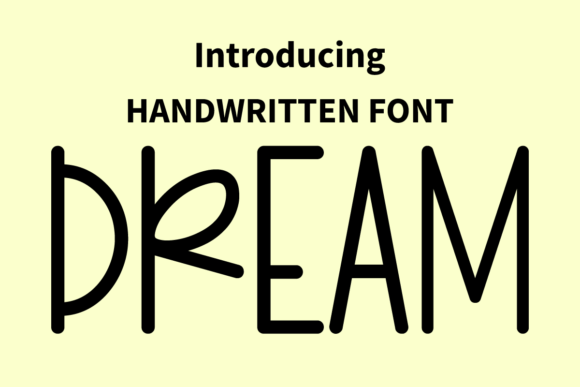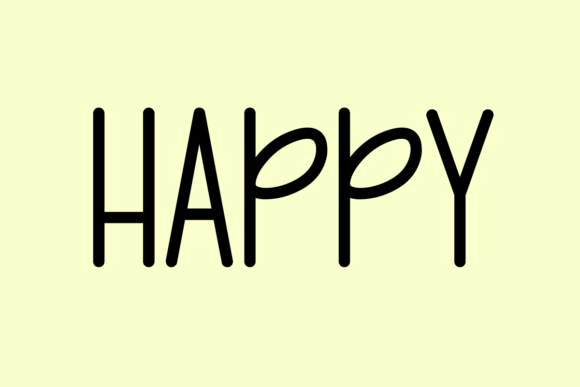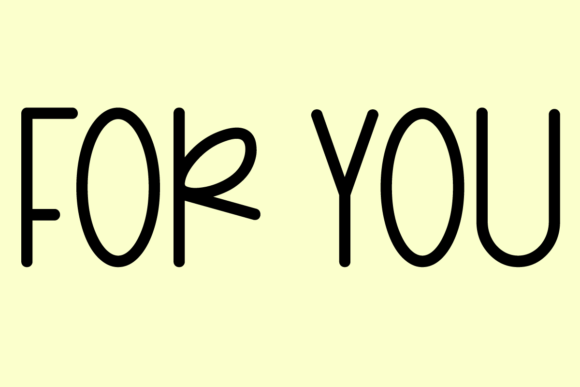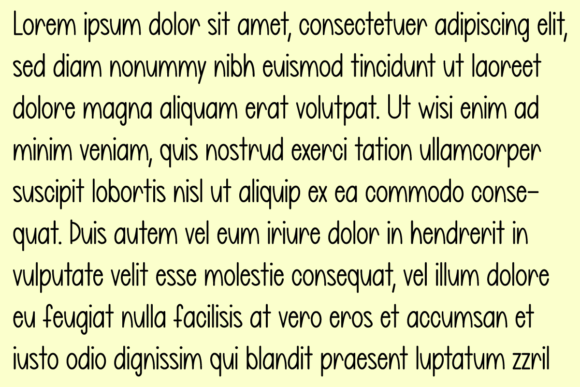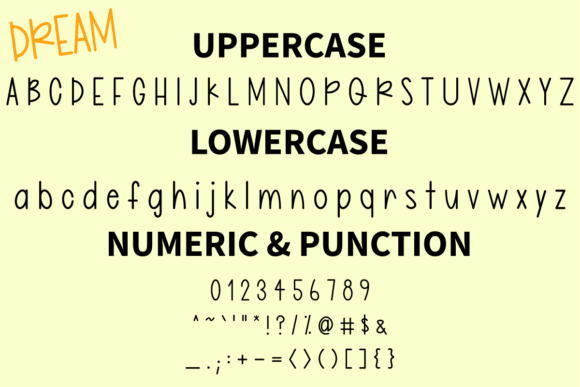
Dream Font
Dream Font Download – Simple Friendly Handwritten Script
The Dream Font download is a whimsical handwritten typeface created to add friendliness and creativity to your projects. With its simple strokes and quirky charm, this font is perfect for personal crafts as well as professional designs. Because of its versatility, it adapts beautifully to invitations, logos, and digital artwork.
Simple and Friendly Handwritten Style
Dream features neat curves and playful details that make text look warm and approachable. As a result, it creates a cheerful impression without losing clarity. In addition, its simplicity makes it flexible for many different uses.
Perfect for Invitations and Wedding Cards
From wedding invitations to personal notes, this font brings a heartfelt and joyful tone. It makes messages feel more memorable and stylish. Therefore, it is a strong choice for event stationery.
Dream Font Download for Logos and Posters
The Dream Font download is also ideal for posters, logos, and branding projects. Its whimsical qualities give designs a creative edge while ensuring readability across formats.
Versatility Across Creative Projects
This typeface works wonderfully in advertisements, magazines, and DIY projects. In addition, it adapts seamlessly to both print and digital platforms, making it reliable for modern creators.
Readability and Balanced Design
Unlike overly decorative fonts, Dream keeps a strong balance between style and legibility. As a result, it works effectively for large titles, product packaging, and smaller text details.
The DreamFont download is simple, versatile, and easy to use. In other words, it suits logos, invitations, posters, magazines, and advertising projects. Finally, it is a handwritten script that adds charm, creativity, and brightness to every design.